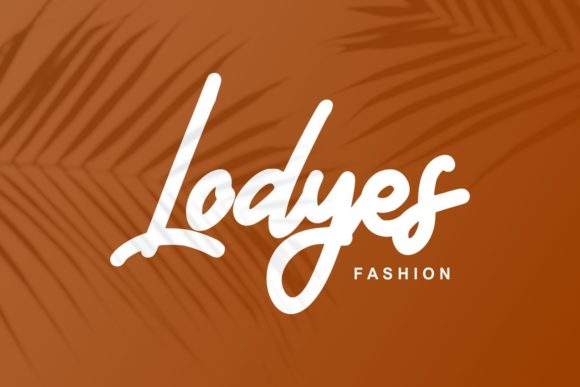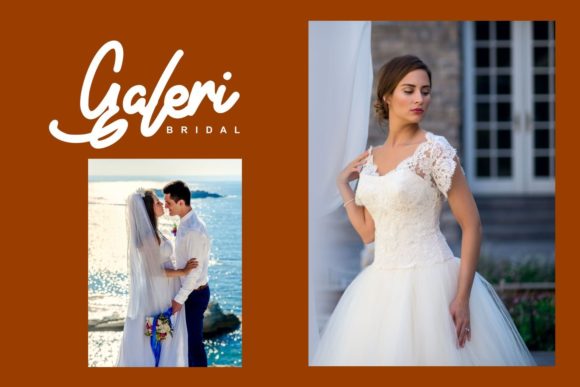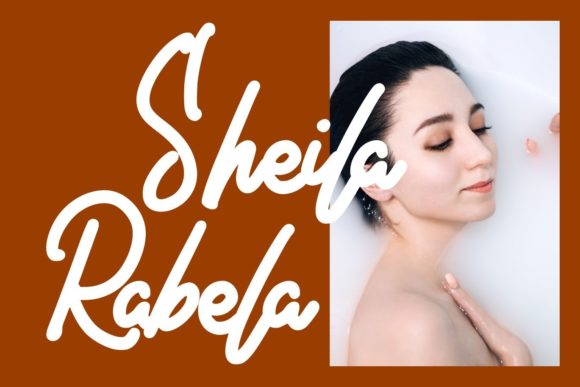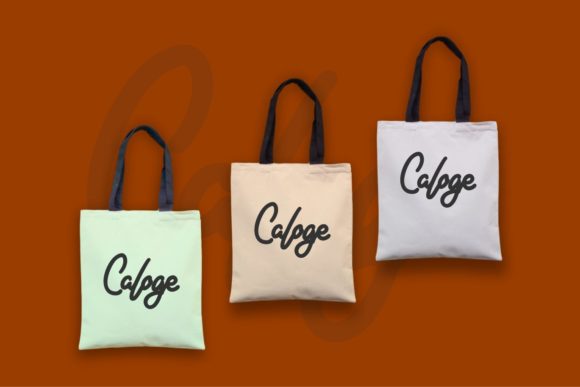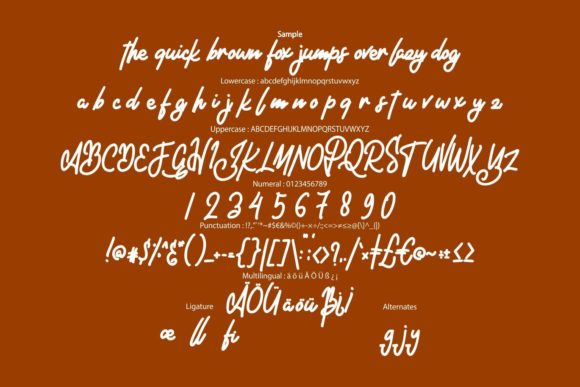
Introduction to Kayofe Font
Have you ever been stuck on a design project, struggling to find the perfect font to bring your vision to life? It’s a frustrating moment we’ve all experienced, but what if I told you there’s a solution that can make all the difference? For designers, finding the right font can be a game-changer, and that’s where the Kayofe Font comes in.
This lovely and timeless handwritten font is a design treasure trove, perfect for creating eye-catching logos, branding, and quotes. With its unique and beautiful touch, every letter is a work of art that will make your design come alive! Whether you’re working on a free download or a high-quality commercial project, the Kayofe Font is a valuable resource that will elevate your creative project to new heights.
- Comes in multiple styles, including bold, italic, and regular, to cater to diverse design needs
- Features a unique and modern aesthetic, making it perfect for contemporary design projects
Honest Review: Kayofe Font
I recently stumbled upon the Kayofe Font while searching for a high-quality design resource for my creative project. The font immediately caught my attention due to its sleek and modern aesthetic.
What works well with the Kayofe Font is its versatility and wide range of uses. You can easily download it for free and use it in various design projects, from logos to digital products. The font also features a transparent background, making it seamless to use on different backgrounds.
- ✨ The font’s modern aesthetic and clean design make it perfect for creative projects.
However, I did encounter some limitations with the Kayofe Font. The font may not be ideal for projects that require a lot of customizability or advanced typography features. Additionally, some users may find the font too modern or trendy for their taste.
Overall, the Kayofe Font is a solid design resource that can add a touch of modernity to your creative project. While it may not be perfect for every project, it’s definitely worth considering for designers looking for a high-quality font.
Common Use Cases for Kayofe Font
The Kayofe Font is commonly used in graphic design, digital art, and creative writing. It is perfect for creating titles, headings, and body text for a variety of projects, from brochures to websites. The Kayofe Font is a great choice for anyone looking for a high-quality, free download font with a transparent background.